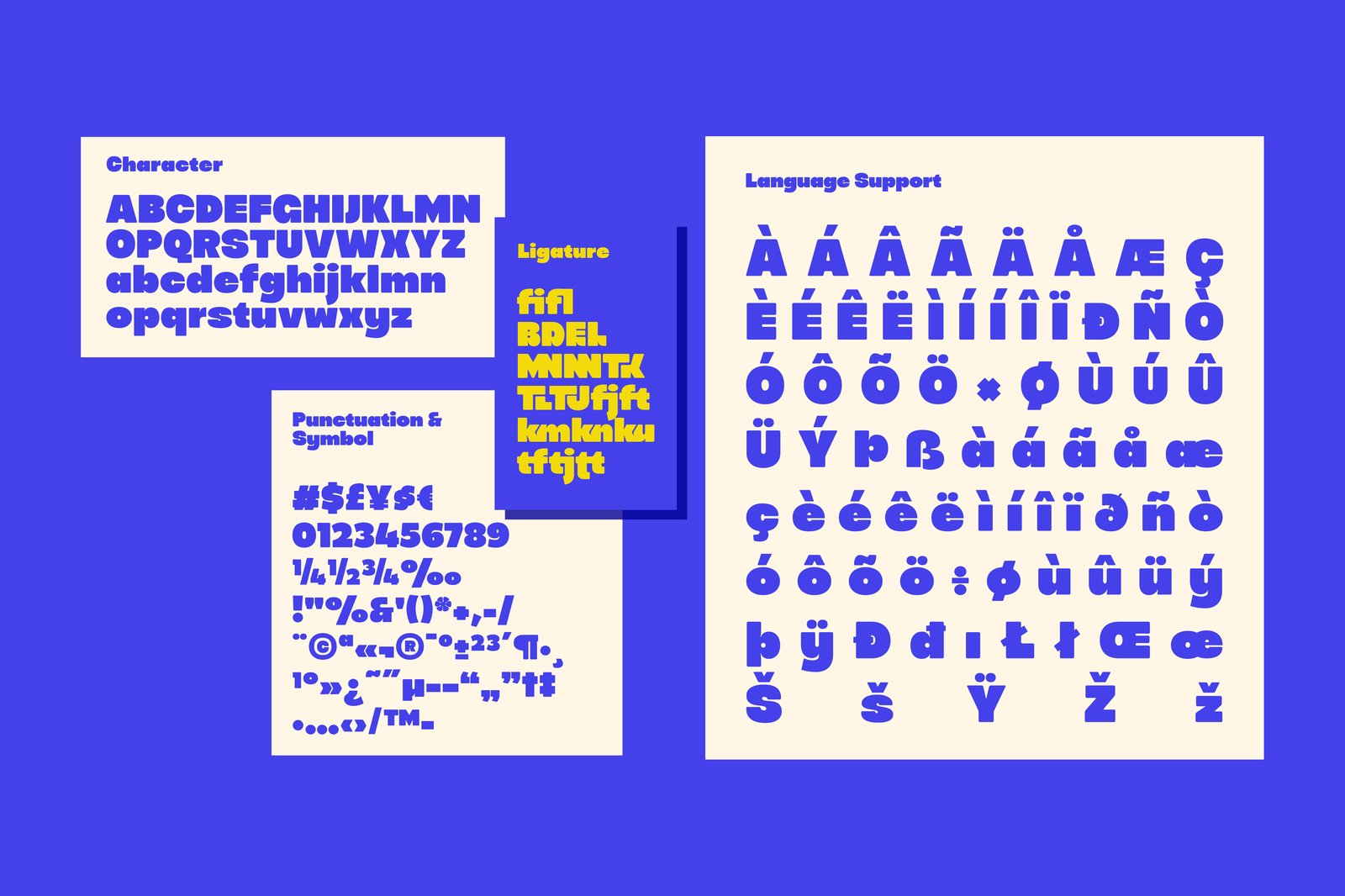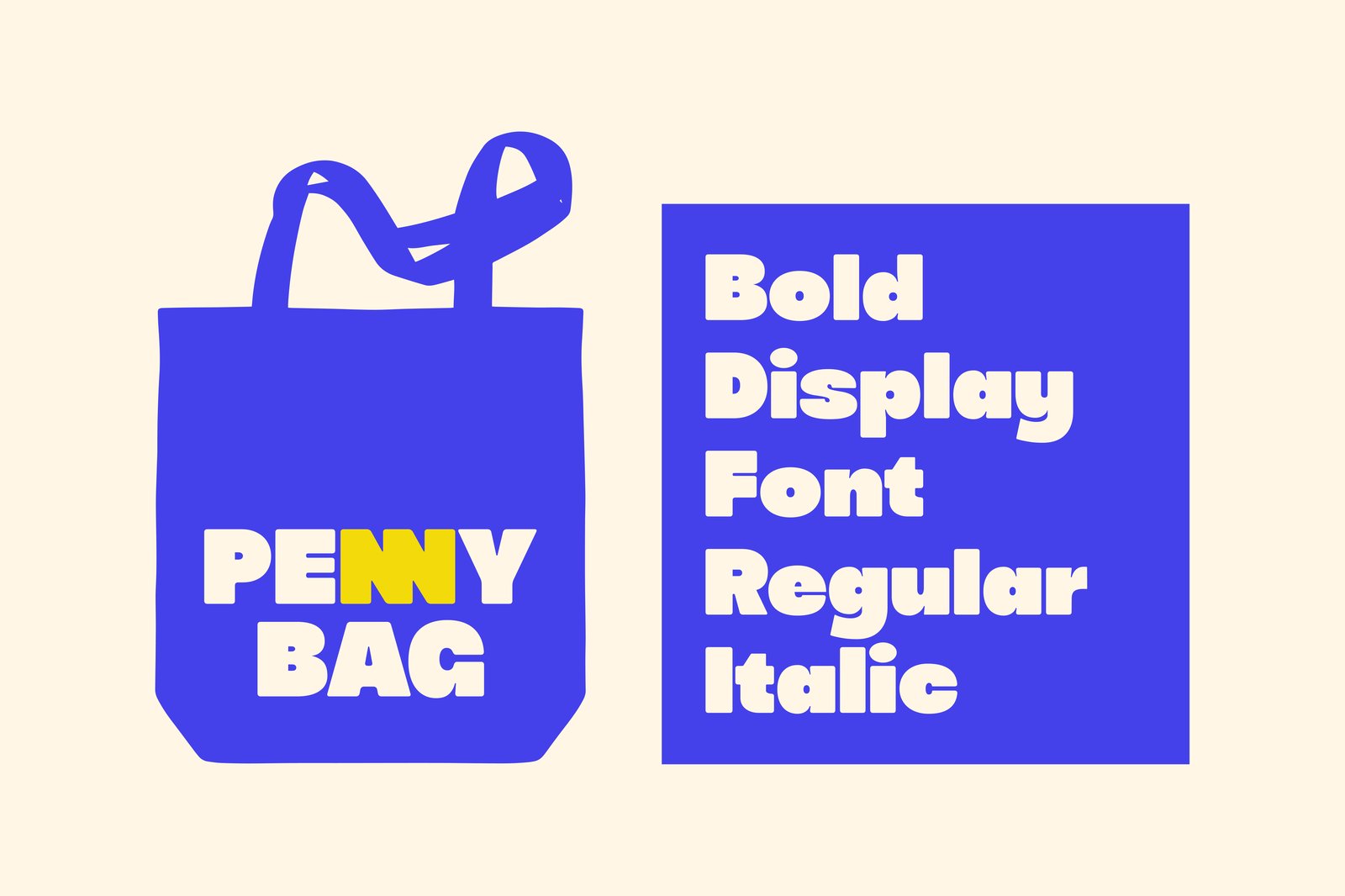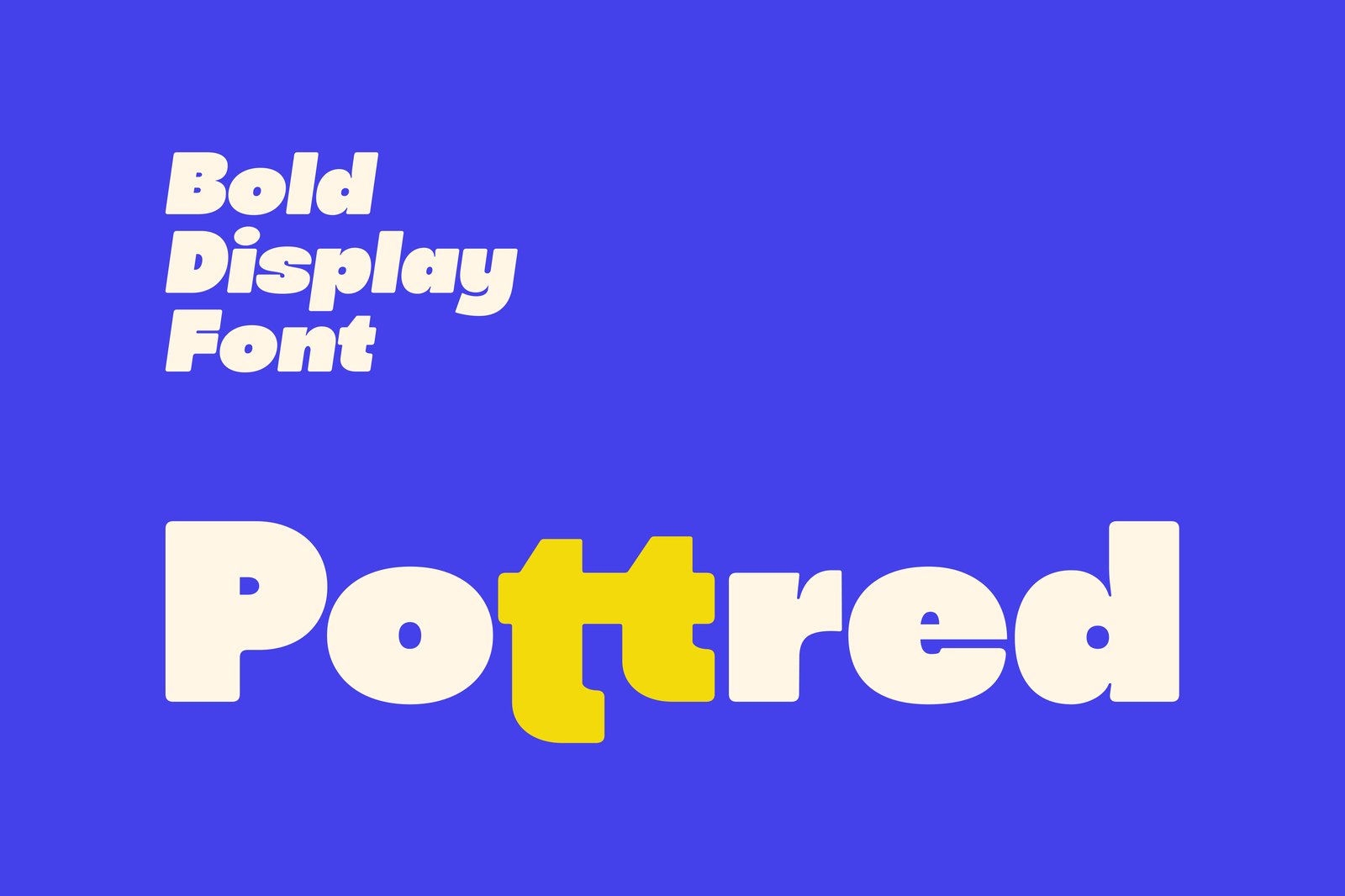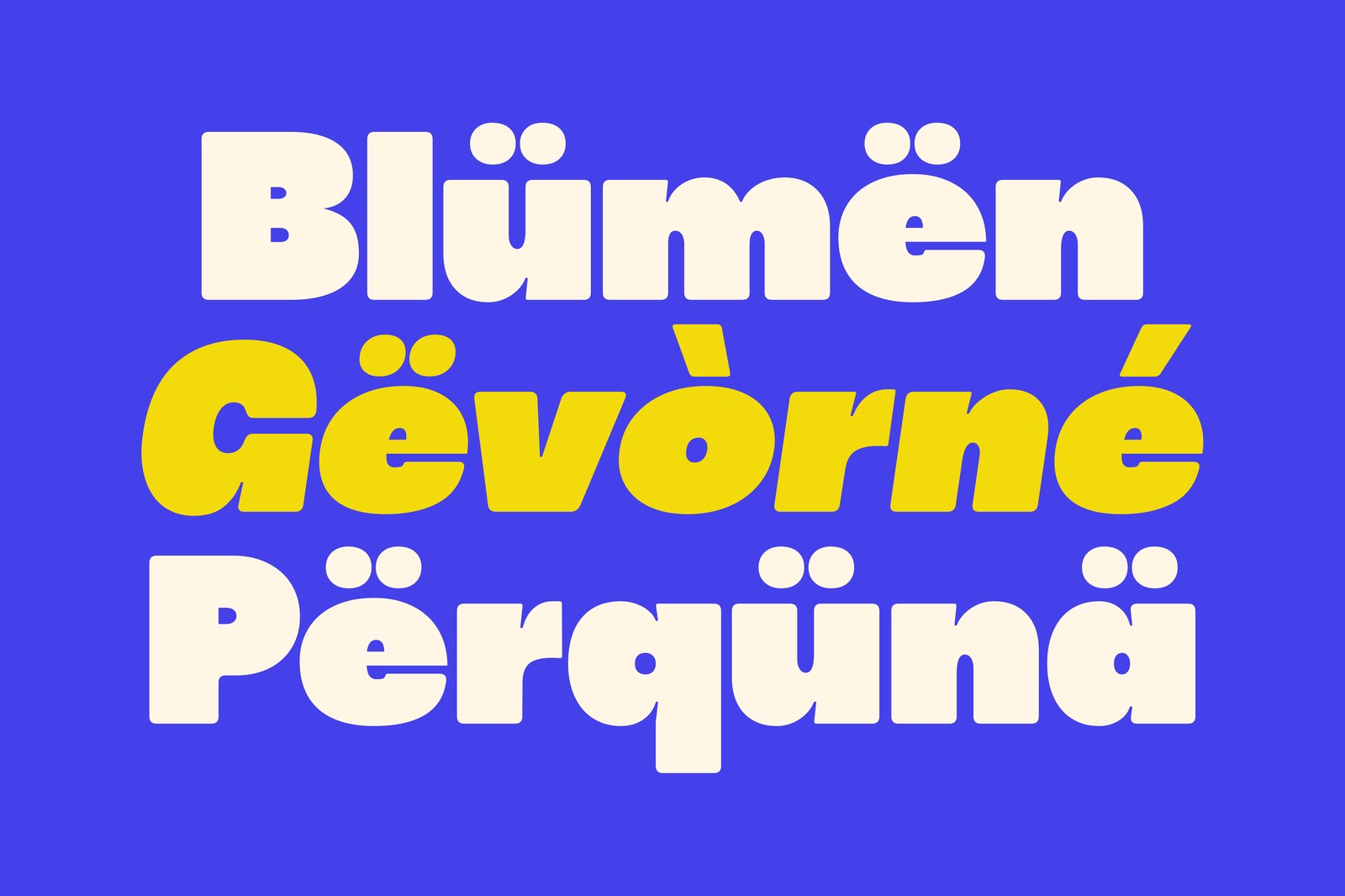
Pottred Bold Display Font
Meet Pottred, a bold and playful display font crafted to bring energy and personality to your designs.
With its rounded shapes, strong curves, and modern retro vibe, Pottred is perfect for eye-catching headlines, logo designs, posters, branding projects, and packaging.
Whether you’re a designer looking for a statement typeface or a brand seeking a fun, friendly identity—Pottred delivers clarity and charm in every letter.
✔ Full uppercase & lowercase
✔ Numbers, punctuation, and multilingual support